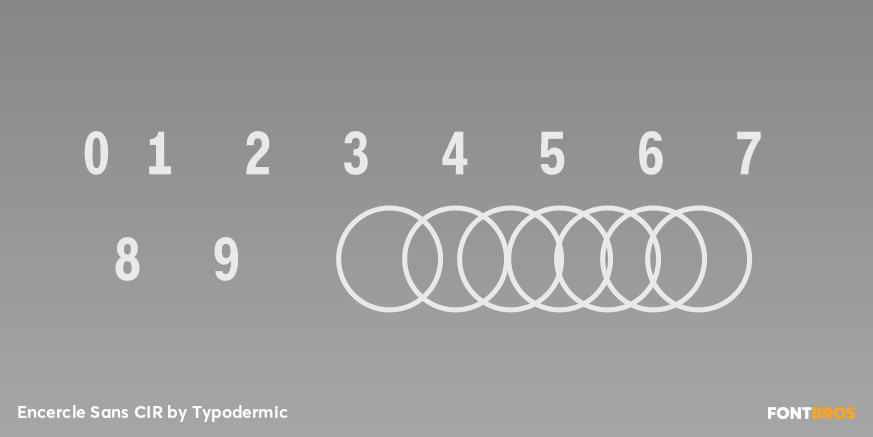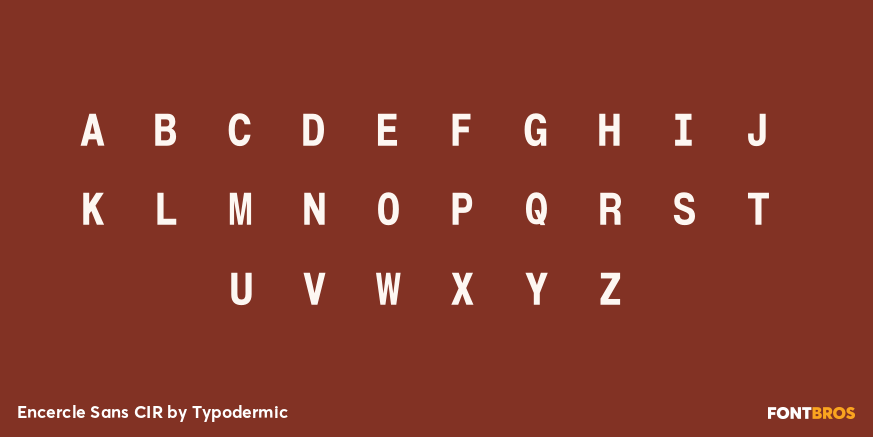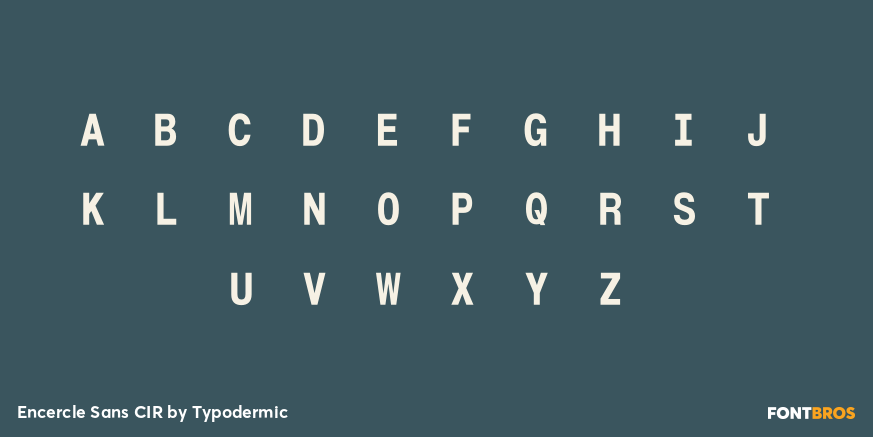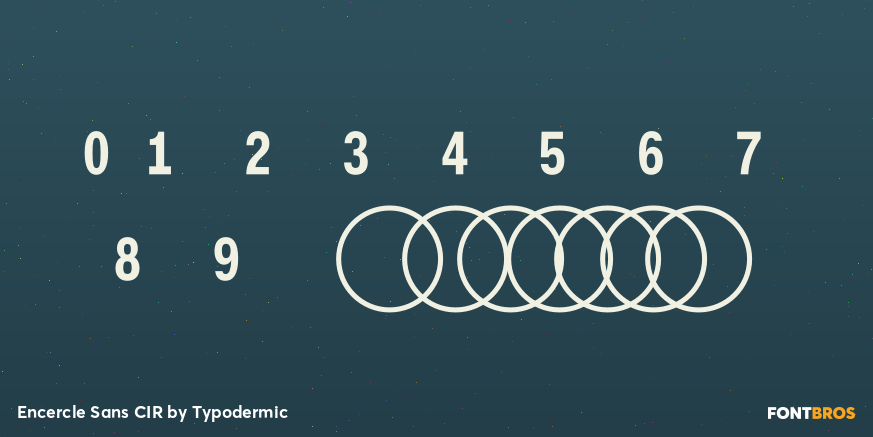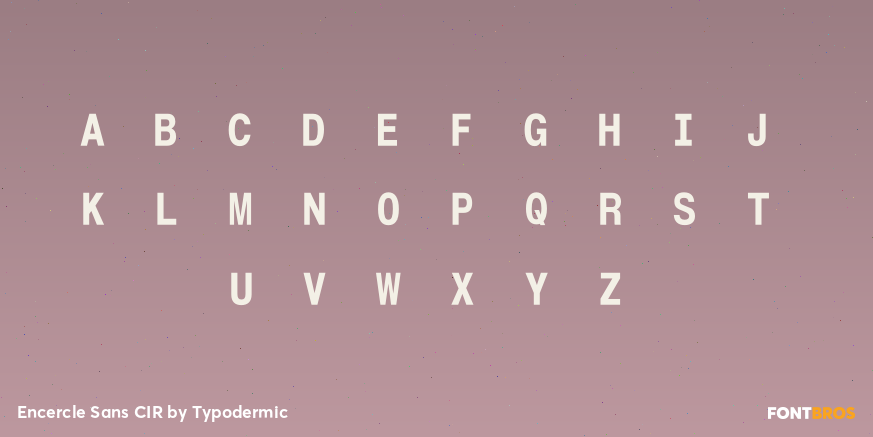
Encercle Sans CIR
Buy NowEncercle Sans CIR automatically centers short text inside a circular outline, creating the familiar economy of a circled number without drawing and recentering separate objects. CIR Bold supplies the inverse version as a solid disc with light lettering. It is the filled counterpart, not a conventional heavier cut.
Use CIR for annotated photographs, museum exhibit numbers, audio-guide references, and scientific figure labels that must connect clearly to a legend. It answers searches for a circled-number font, round photo-callout font, or editable exhibit-marker typeface.